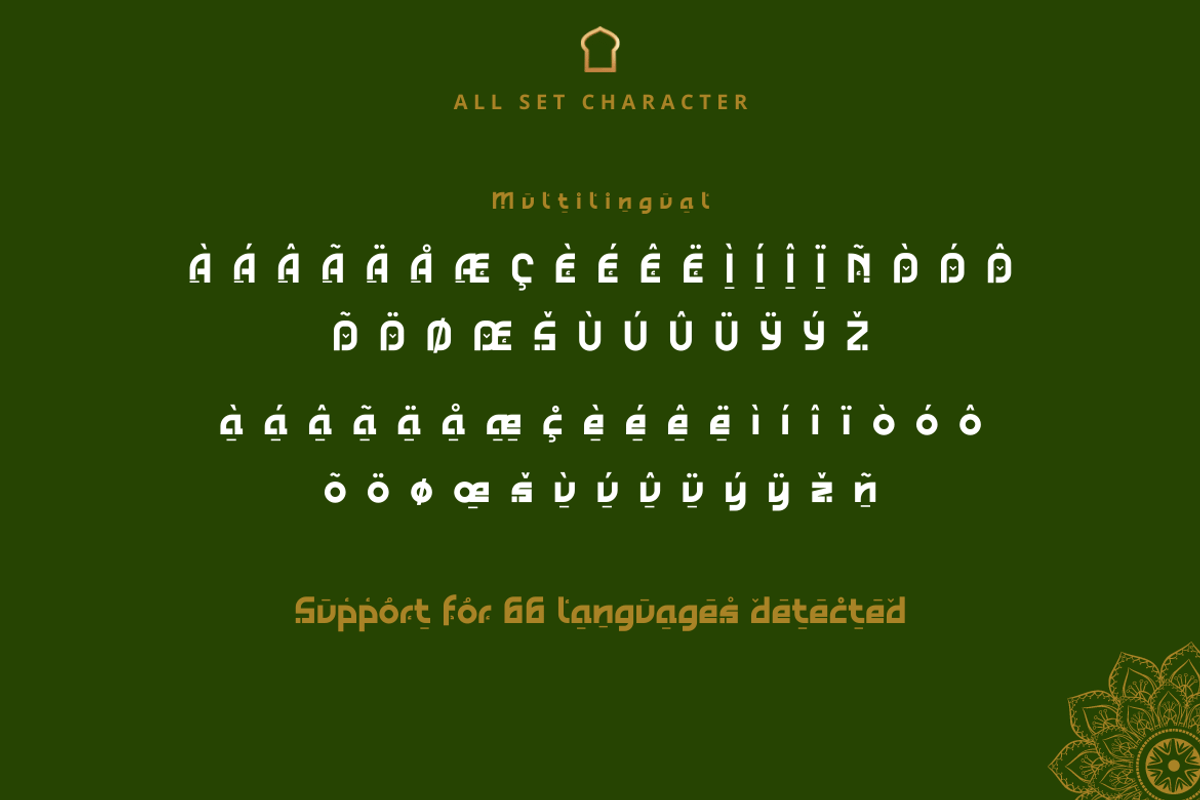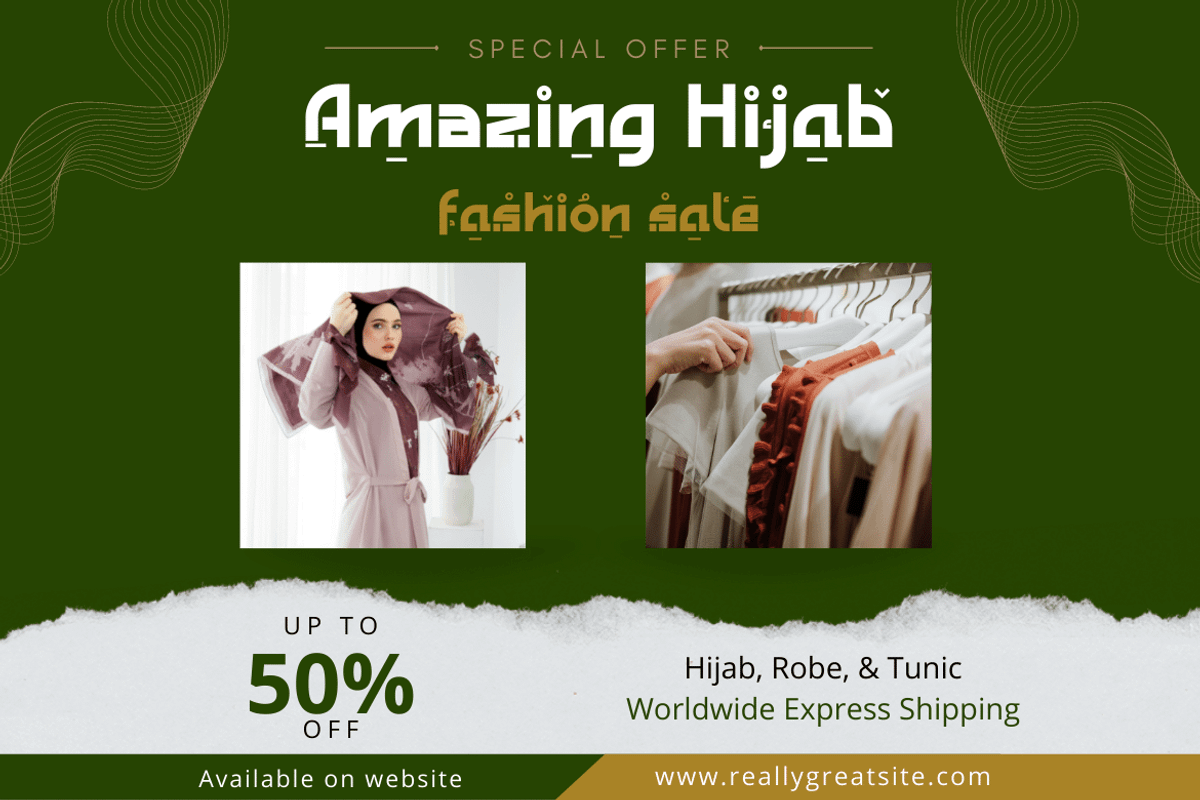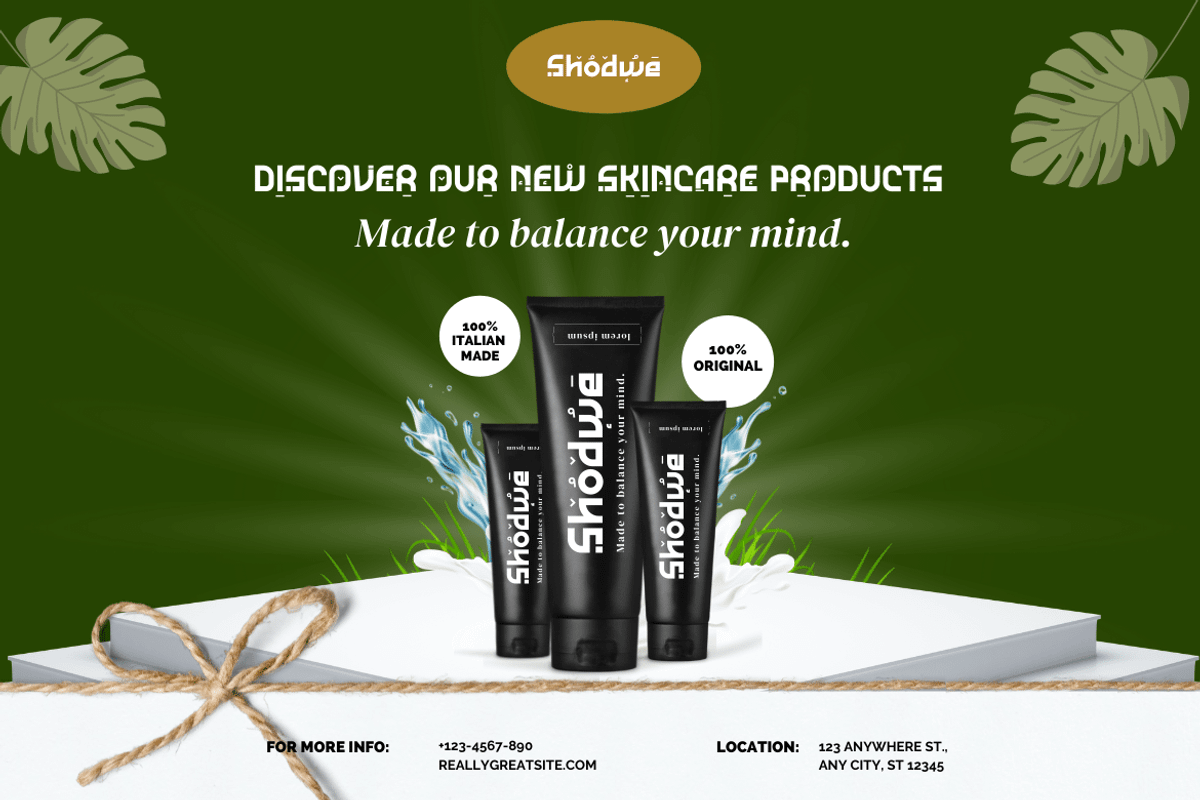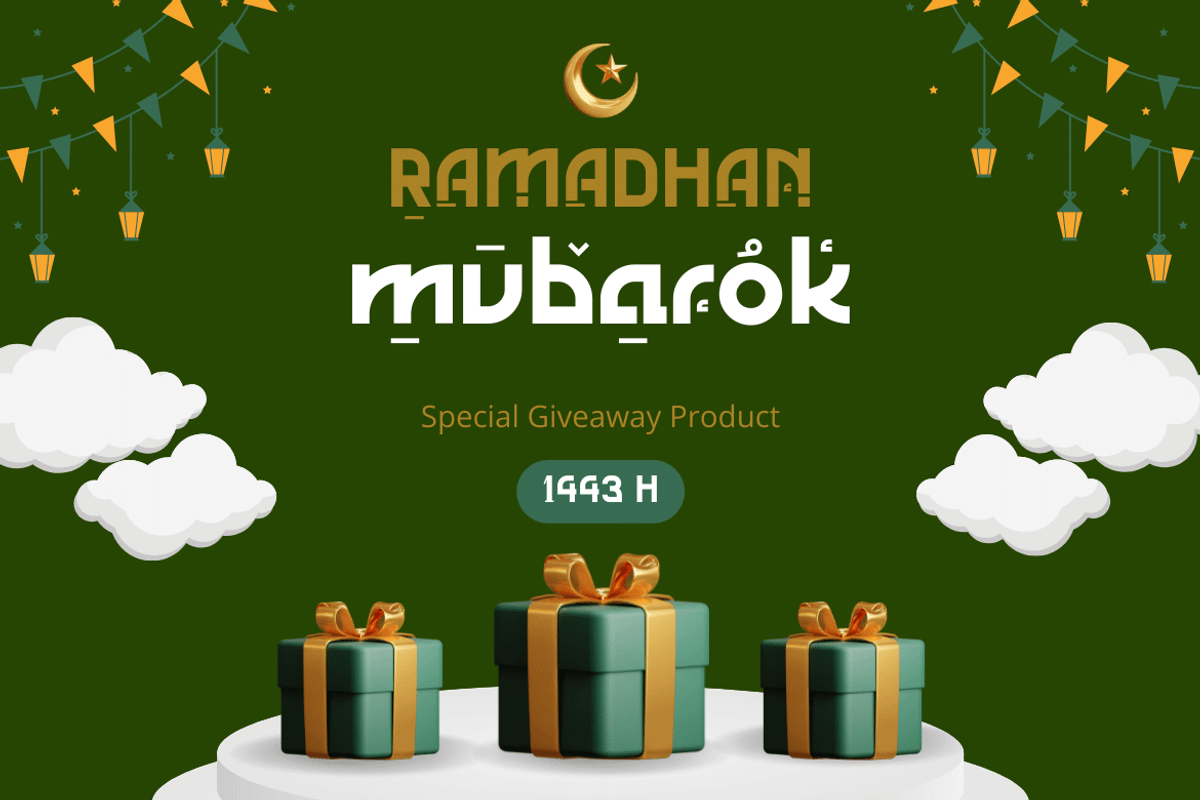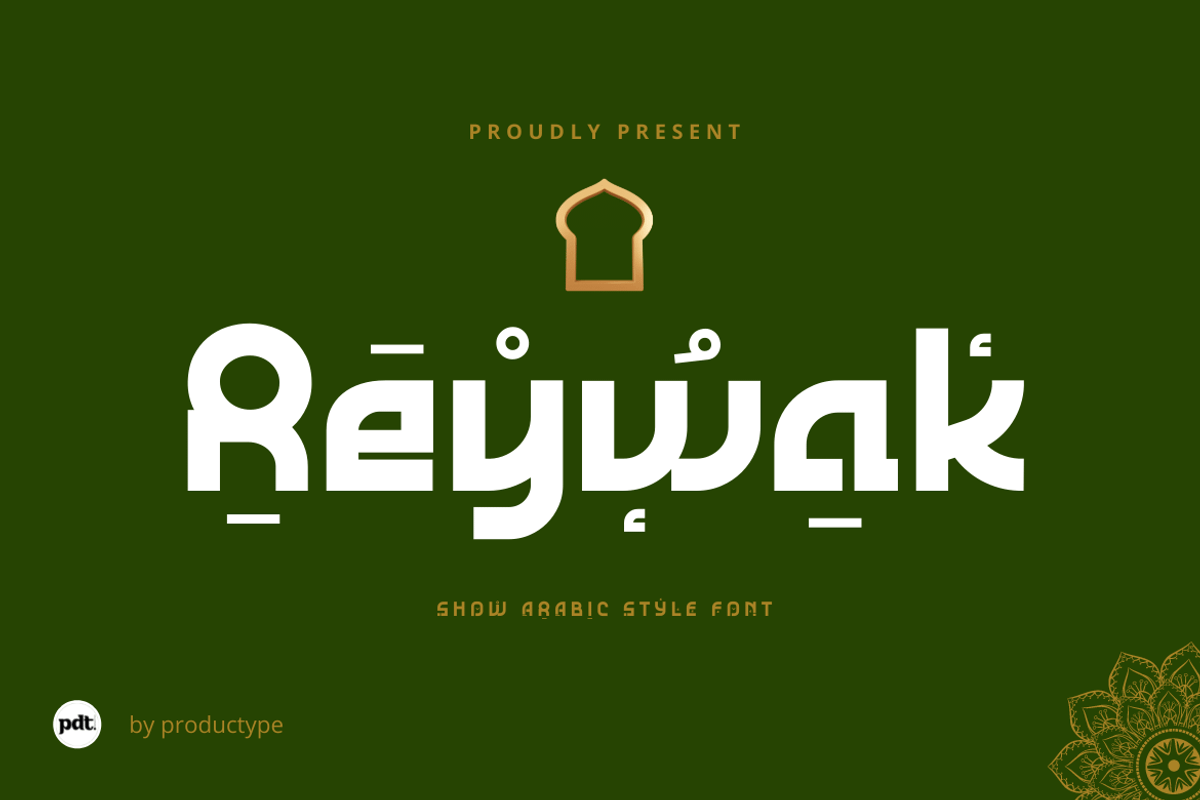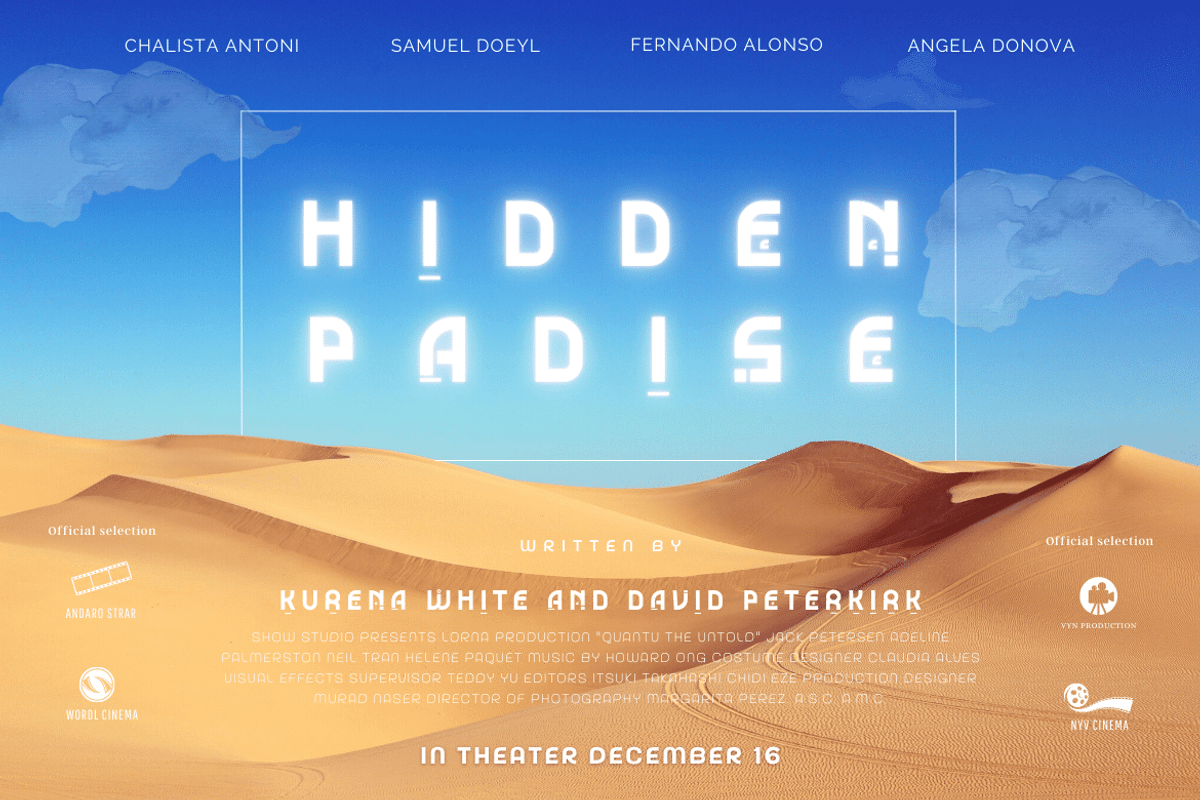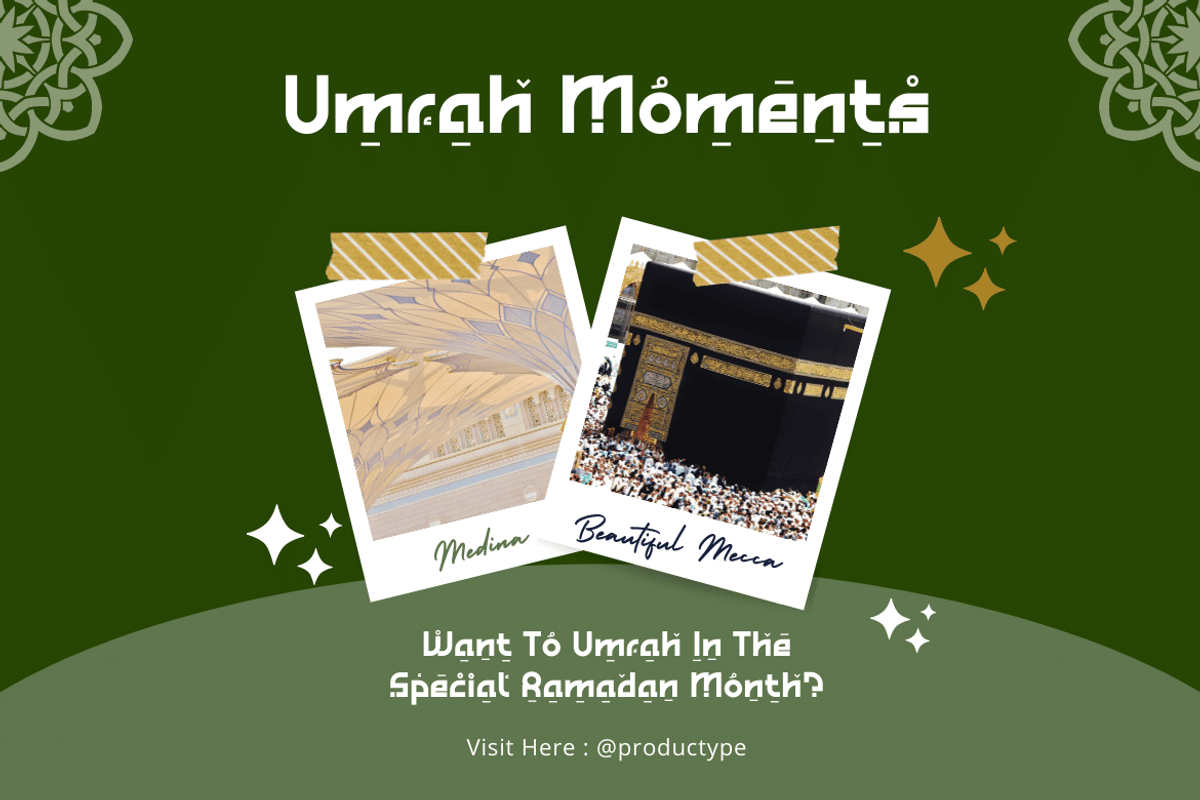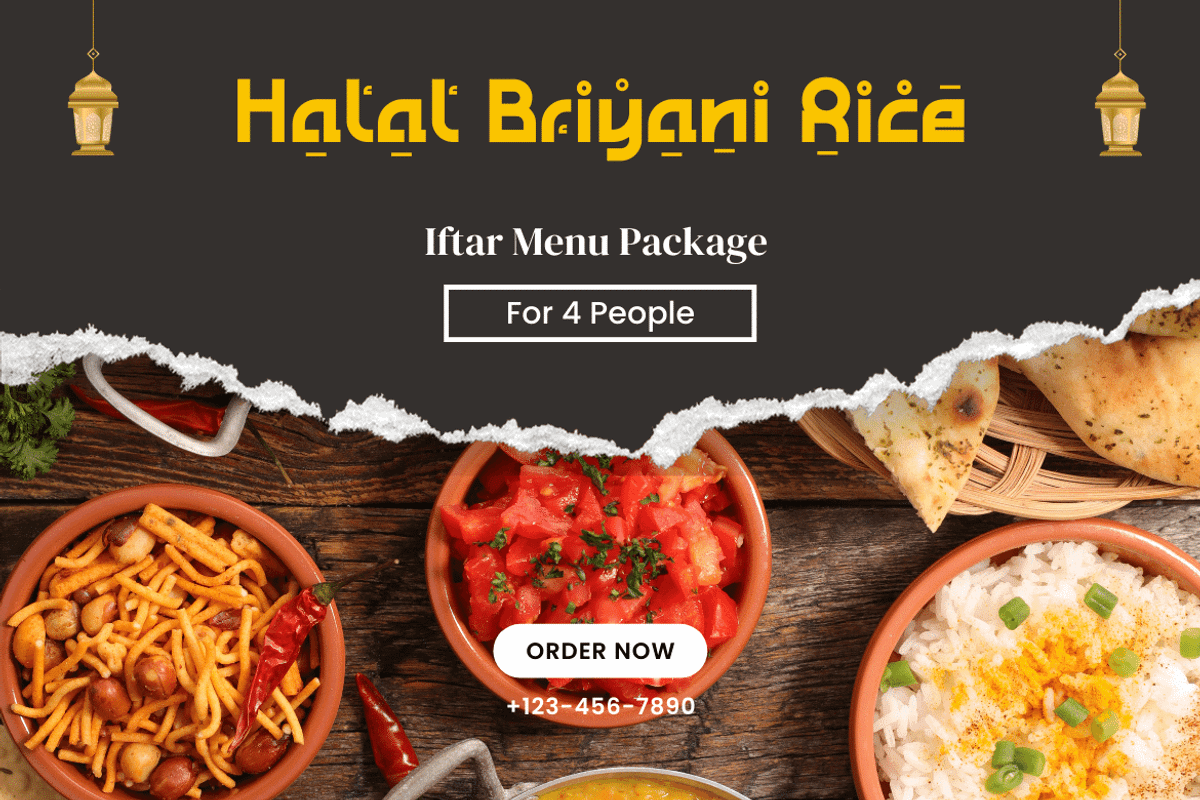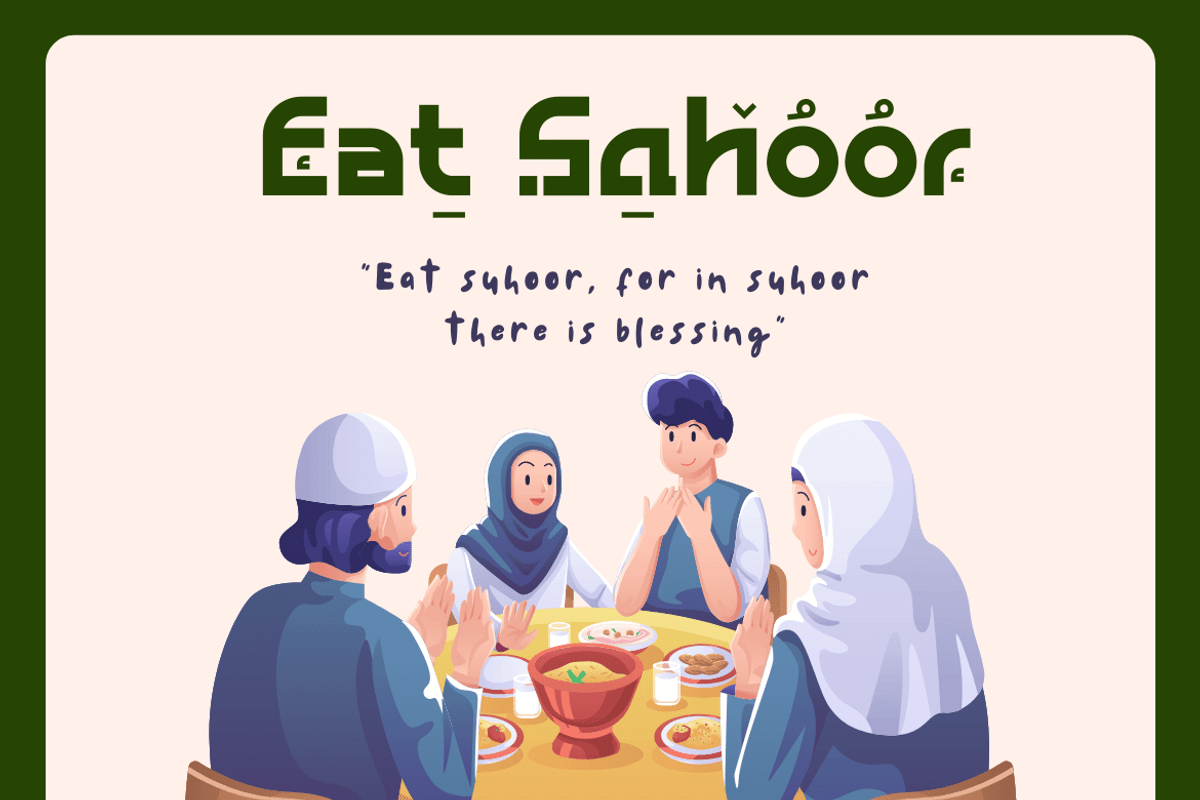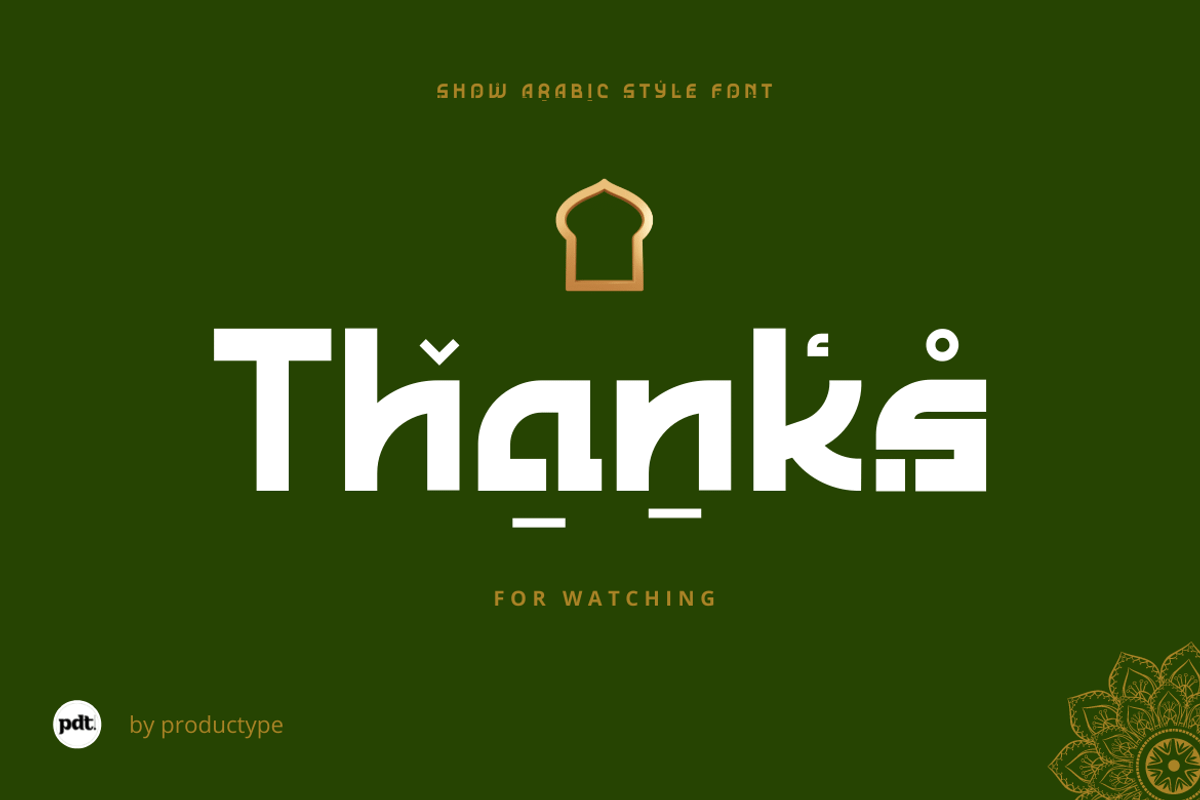
Reywak
Reywak is an impactful new font that merges the clean look of sans-serif fonts with the powerful symbolism of Arabic characters. Its readability makes it the perfect choice for headlines and long reads, while the unique allure of its arabesque design lends itself beautifully to posters and greetings. Reywak: use it to make your content a cut above the rest.